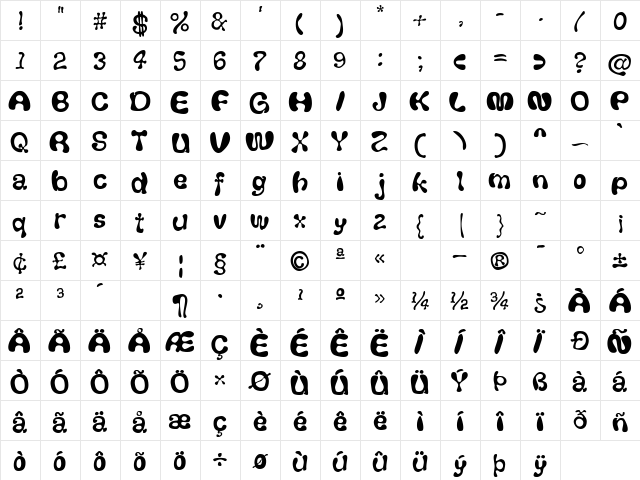
Thickhead Medium
Thickhead Medium Font Preview
Thickhead Medium
Thickhead Medium Font Details
Design Context for Thickhead Typeface
Thickhead is a composed and adaptable typeface that performs quietly and consistently across a wide range of design contexts.